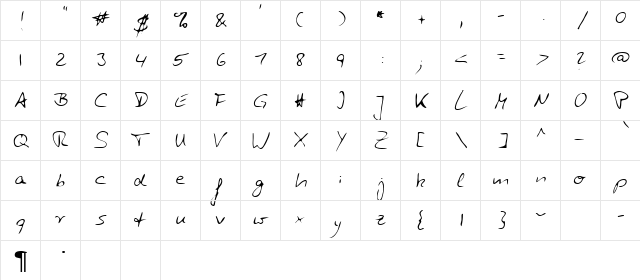
Zuerbig Regular
Design Context for Zuerbig Typeface
Zuerbig is a composed and adaptable typeface that performs quietly and consistently across a wide range of design contexts.